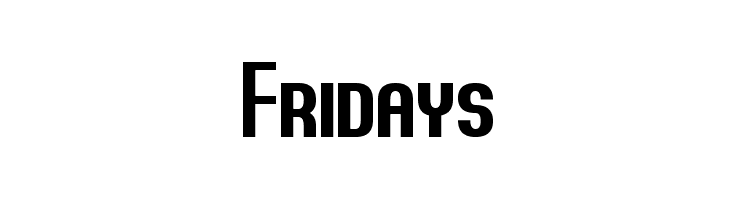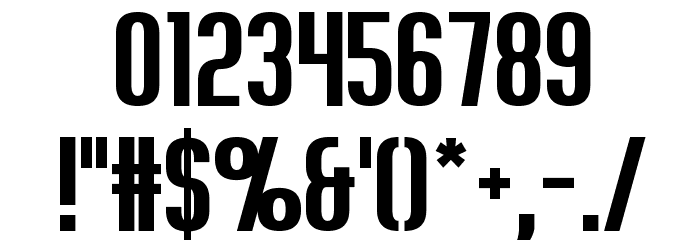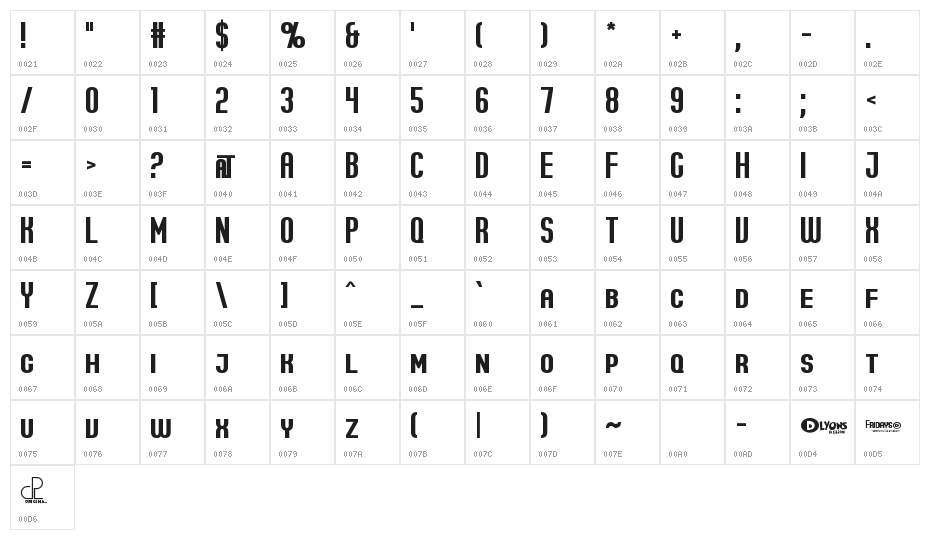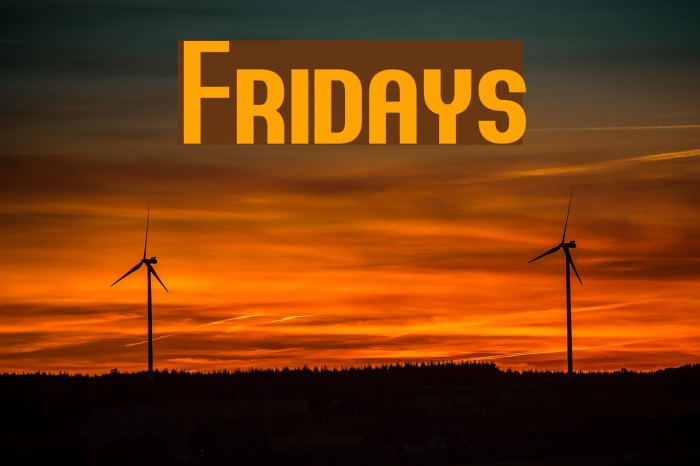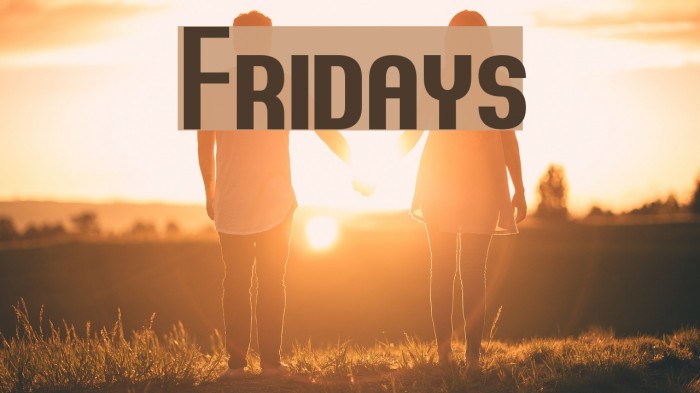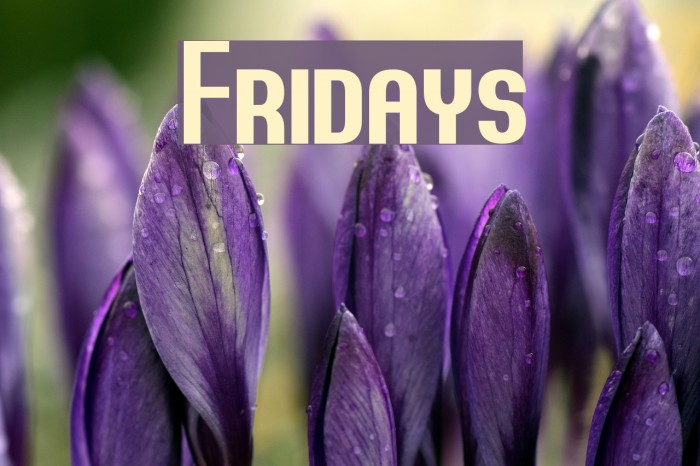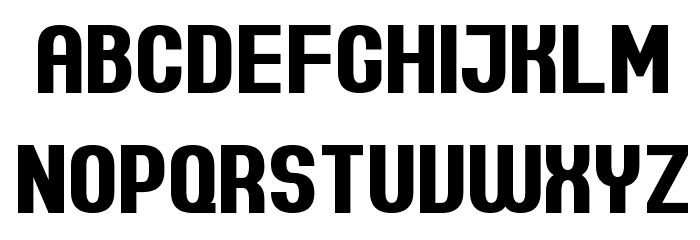
Fridays Font
Fridays Description
This font features bold, geometric letterforms with a strong presence. The uppercase letters are tall and narrow, while the lowercase letters maintain a consistent width, contributing to a uniform appearance. The numbers are equally bold, ensuring readability and impact. Special characters are designed to match the overall style, making them suitable for various applications. The font's clean lines and modern aesthetic make it versatile for both digital and print media.